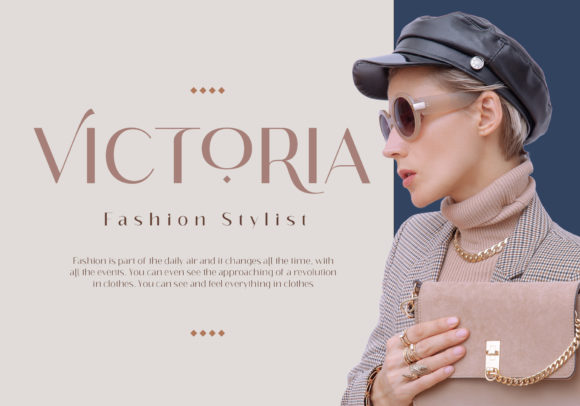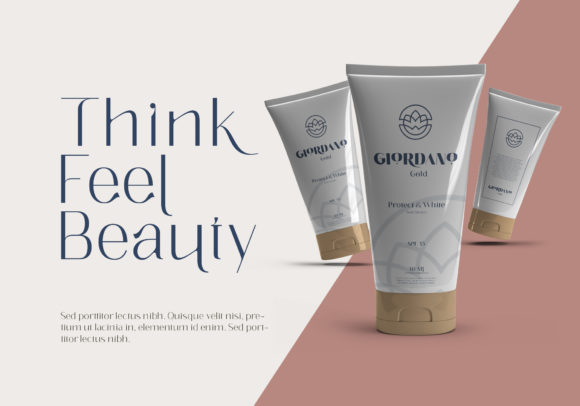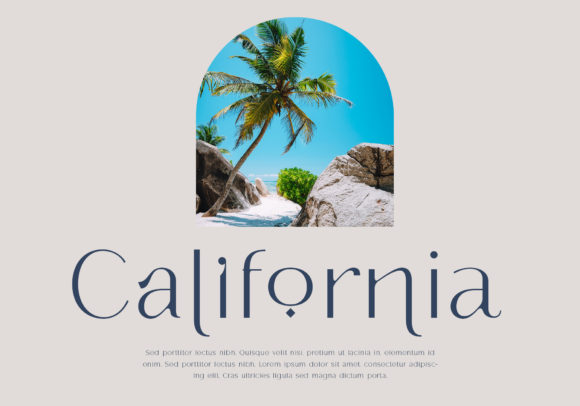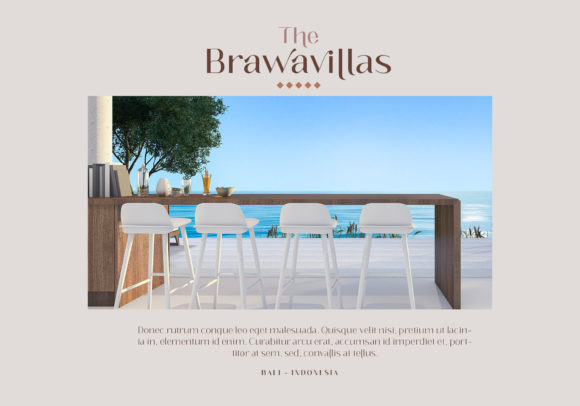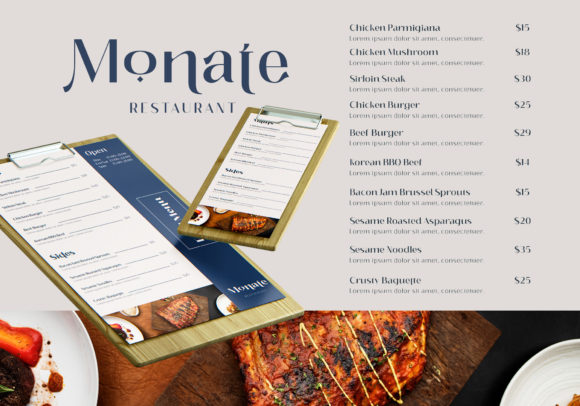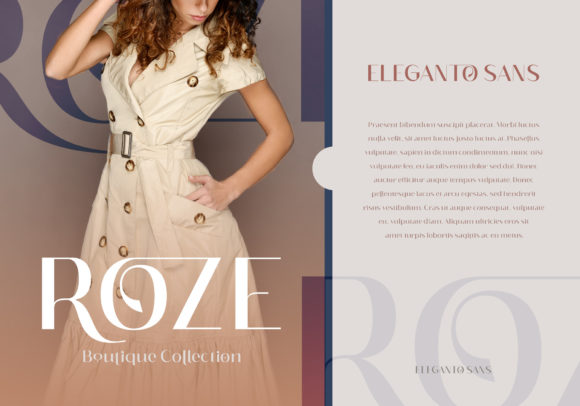
Unleash Your Creativity with the Eleganto Font
Do you ever find yourself scrolling through your favorite design inspiration boards, feeling a spark of creativity ignite within you, and suddenly envisioning the perfect project? For many designers, this is the moment when the magic happens – and we’re here to help you make that vision a reality. Meet Eleganto Font, a modern and distinct sans serif font that’s sure to elevate your designs and leave a lasting impression.
This stunning font is perfect for creating gorgeous wedding invitations, beautiful stationery art, eye-catching social media posts, and much more. With Eleganto Font, you’ll have the versatility to express yourself in any creative way you desire. As a designer, you know how valuable it is to have a go-to font that can make your designs stand out from the crowd – and Eleganto Font is just that.
Eleganto Font Key Features
- Font Family: Eleganto Font offers a range of 12 fonts, each with its unique characteristics and styles.
- Unique Characteristics: Eleganto Font features a unique blend of modern and classic styles, with elegant curves and subtle flourishes, making it perfect for luxury and high-end designs.
- Font Weight: Available in Light, Regular, Medium, Bold, and Heavy weights, allowing designers to choose the perfect weight for their design project.
Eleganto Font Review
I’ve had the chance to work with the Eleganto Font, and I must say it’s a mixed bag. ✨ On the plus side, I appreciate its elegant and sophisticated feel, which is perfect for creating high-end branding materials. The font’s subtle flair and refined lines make it ideal for use in luxury goods, fashion, and fine dining industries.
Additionally, the font’s versatility is a major plus. It’s available in multiple weights, from light to bold, which gives designers a wide range of options to choose from. This makes it easy to use in various contexts, from headers to body text.
- ⚠️ The font may not be the best choice for body text at smaller font sizes. The lines can become too thin and may be difficult to read.
- ⚠️ The font’s sophistication may not be suitable for more casual or playful projects.
Overall, I think the Eleganto Font is a solid choice for designers who need a high-end, elegant font. While it may have some limitations, its strengths make it a valuable addition to any design arsenal.
Tips for Getting the Most Out of Eleganto Font
Use Eleganto Font for titles, headings, and other important text elements to create a visually appealing design. Experiment with different font sizes and styles to add emphasis and hierarchy to your text.
Eleganto Font is ideal for creating elegant and sophisticated designs, such as invitations, business cards, and brochures. It’s also great for adding a touch of luxury to your digital content, such as e-books, presentations, and websites.
Alternatives to Eleganto Font for Designers
Montserrat is a modern sans-serif font designed for urban environments. It’s a great choice for designers who want a clean and sophisticated look. Montserrat is more geometric and condensed compared to Eleganto Font, making it ideal for headlines and titles.
Comparison: Montserrat has a more aggressive feel, while Eleganto Font is more elegant and refined.
Lato is a clean and modern sans-serif font that’s highly versatile. It’s suitable for a wide range of applications, from body text to headlines. Lato is more rounded and friendly compared to Eleganto Font, making it ideal for designs that require a softer touch.
Comparison: Lato has a more approachable feel, while Eleganto Font is more formal and sophisticated.